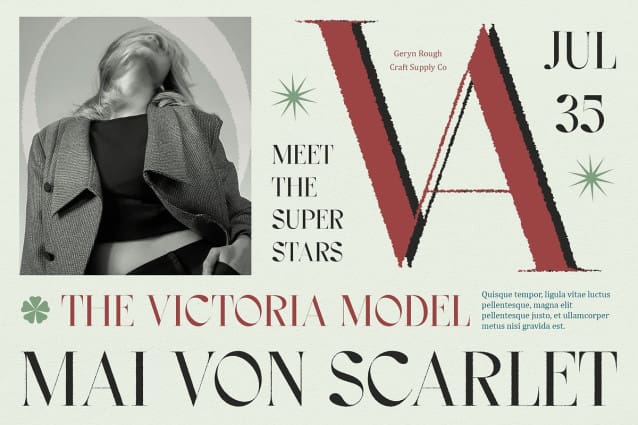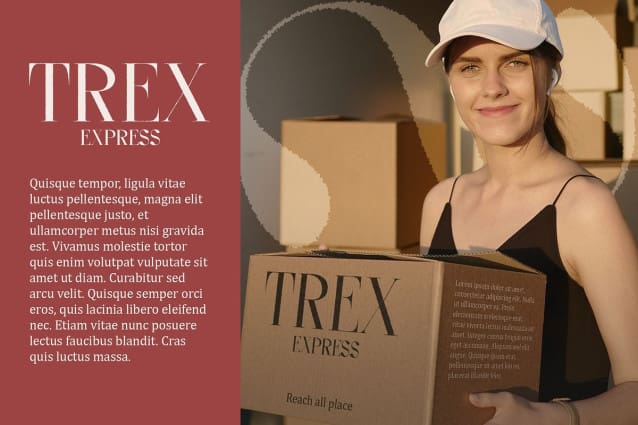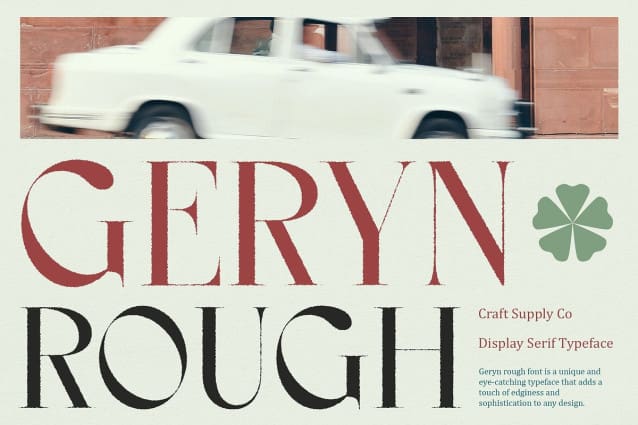
Geryn Rough Font
Geryn Rough Font is a modern serif font that combines elegant style with a rough, textured vibe, making it perfect for display purposes. Its unique design adds character and depth to any project, setting it apart from traditional serif fonts.
Experience the elegance of Geryn Rough Font, enhanced with a raw edge. Each letter features subtle roughness, giving the font a handcrafted feel that adds warmth and personality to your designs.
Designed for display purposes, Geryn Rough Font excels in headlines, titles, and other prominent text elements. Its rough vibe adds a touch of authenticity and originality, making it ideal for projects that require a modern yet organic look.
Versatile and Expressive
Despite its rough appearance, Geryn Rough Font remains versatile and expressive. Whether used in digital or print media, it adds a unique charm that captures attention and conveys a sense of creativity and individuality.